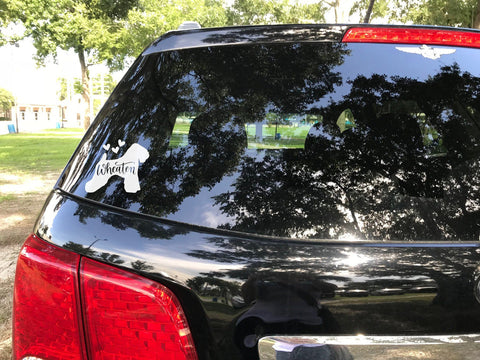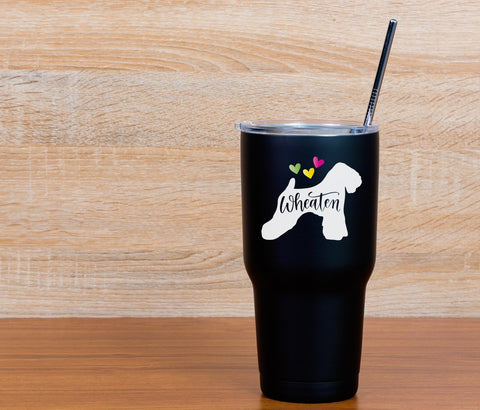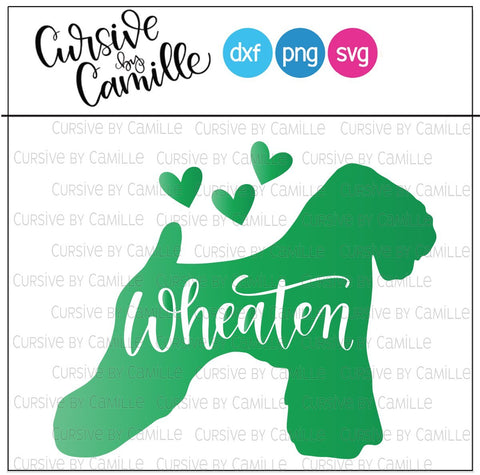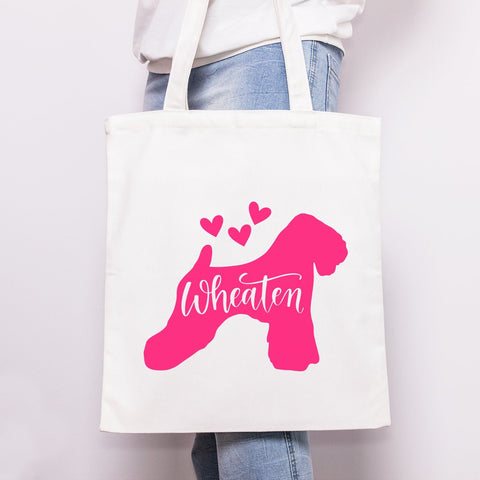
Wheaten Terrier Silhouette Hand Lettered Cut File
Show your Wheaten pride and create all types of projects including signage, car decals, clothing, photo props, stationery, drink ware, tote bags, and so much more!
This SVG file is hand lettered in my own handwriting. Once purchased, the files are yours to keep.